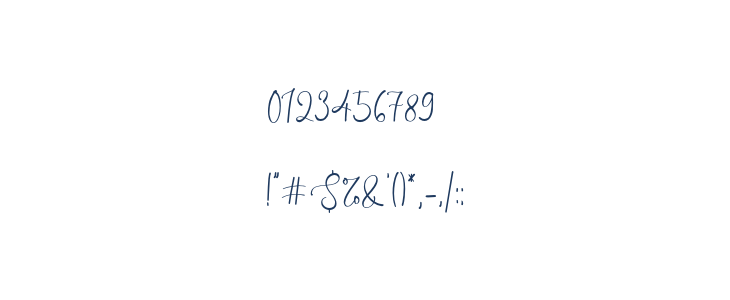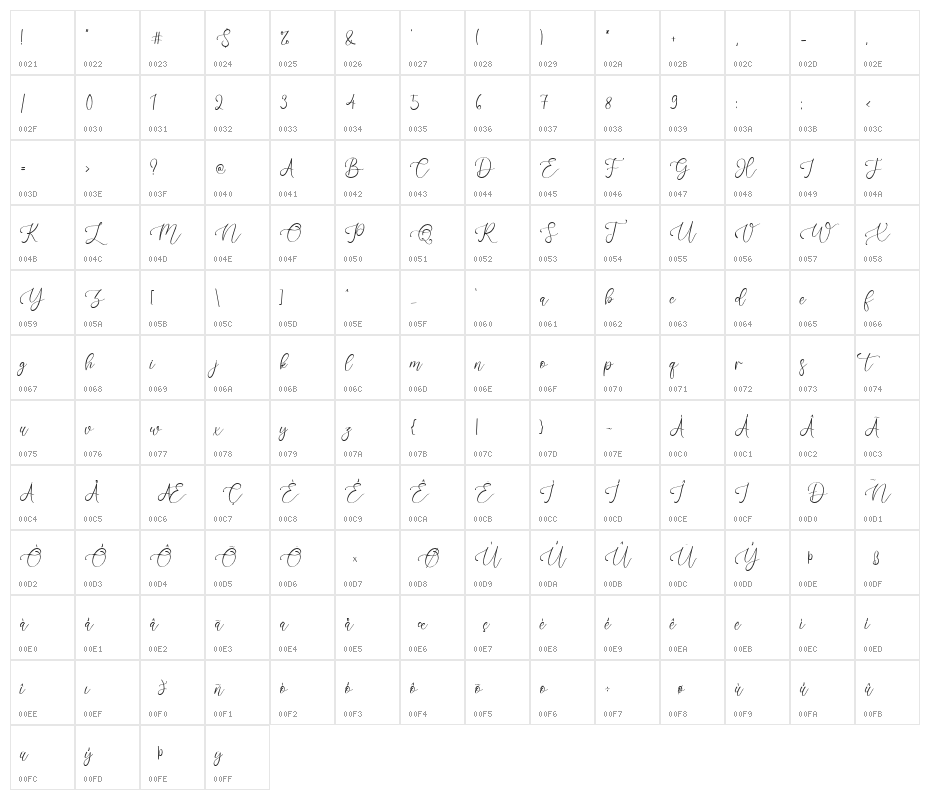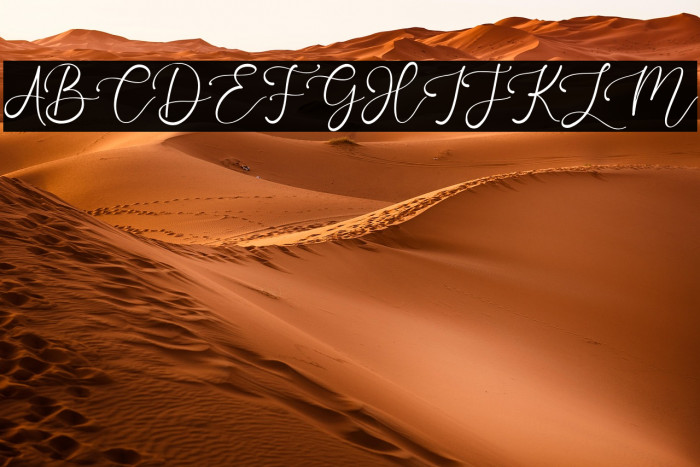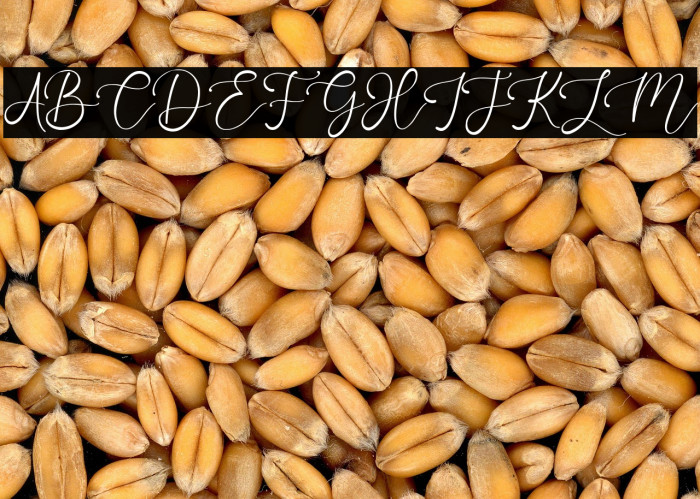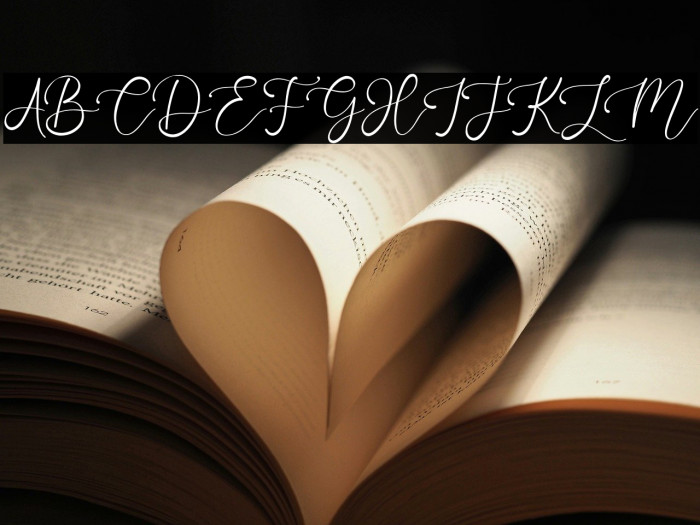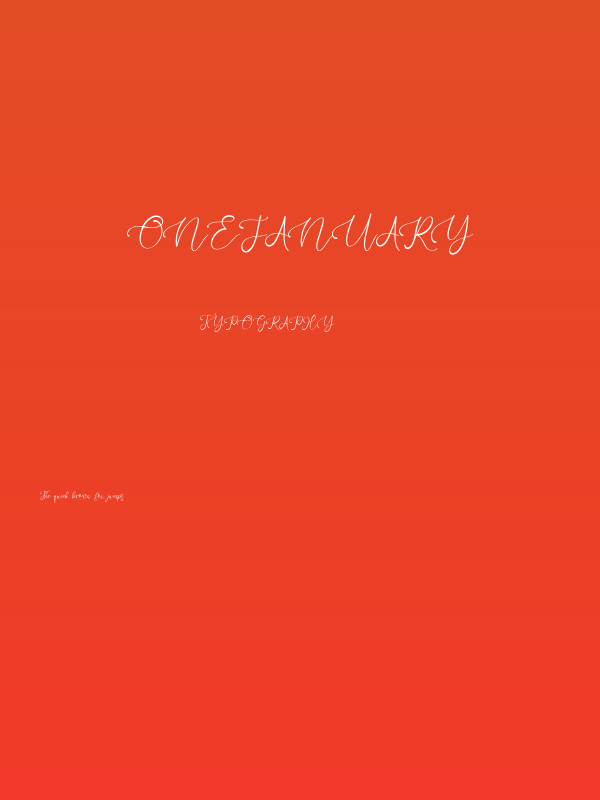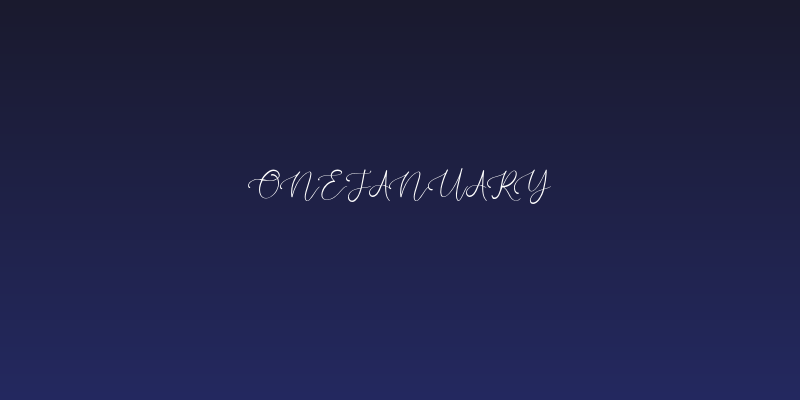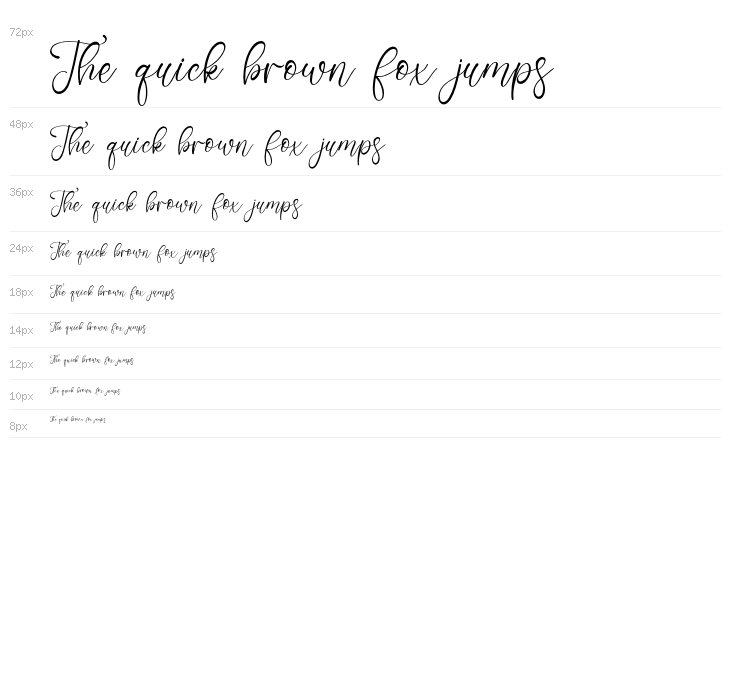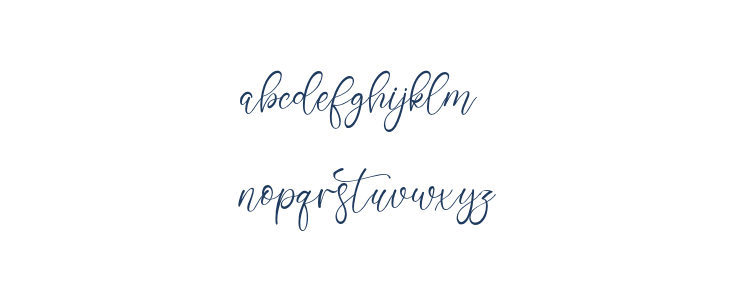
OneJanuary Font
OneJanuary Description
This elegant script font features flowing, cursive letters with a sophisticated and graceful appearance. The uppercase letters are characterized by their sweeping curves and loops, while the lowercase letters maintain a consistent fluidity that enhances readability. The numerals and special characters are designed with the same attention to detail, ensuring a cohesive look across all elements. The font's delicate strokes and refined style make it ideal for projects that require a touch of elegance and class.